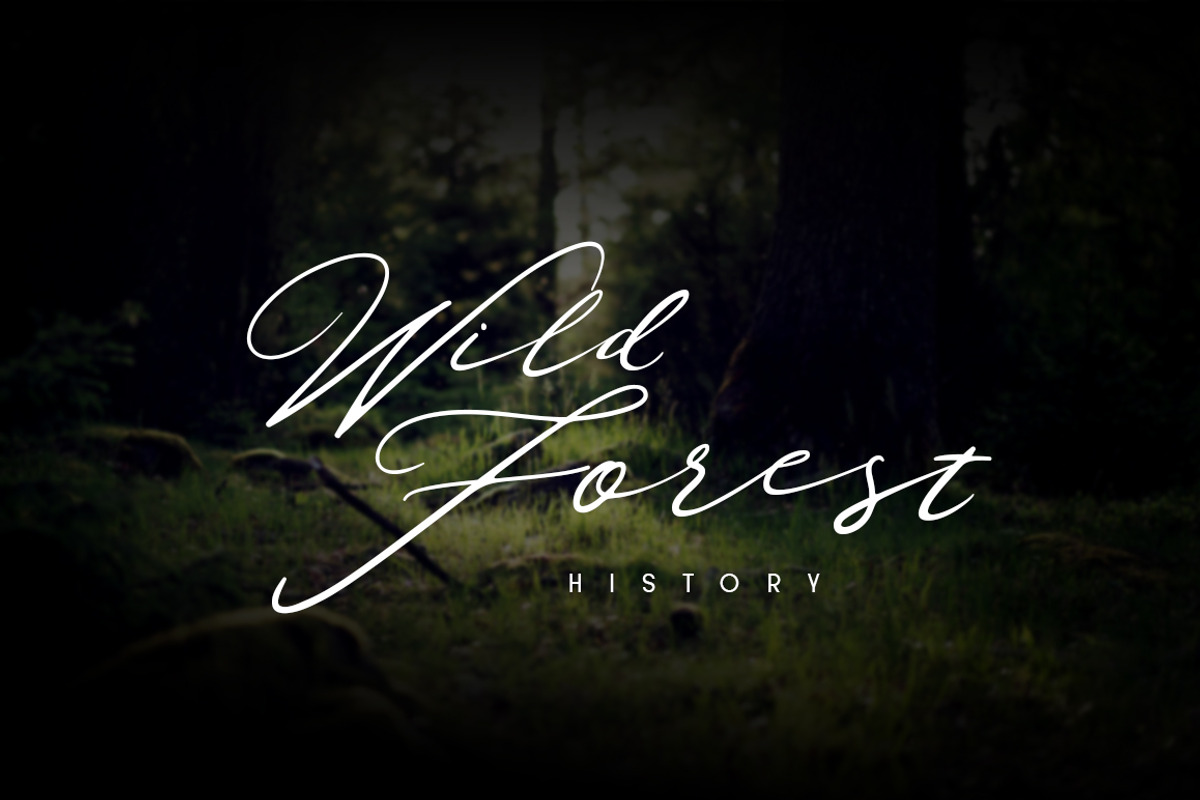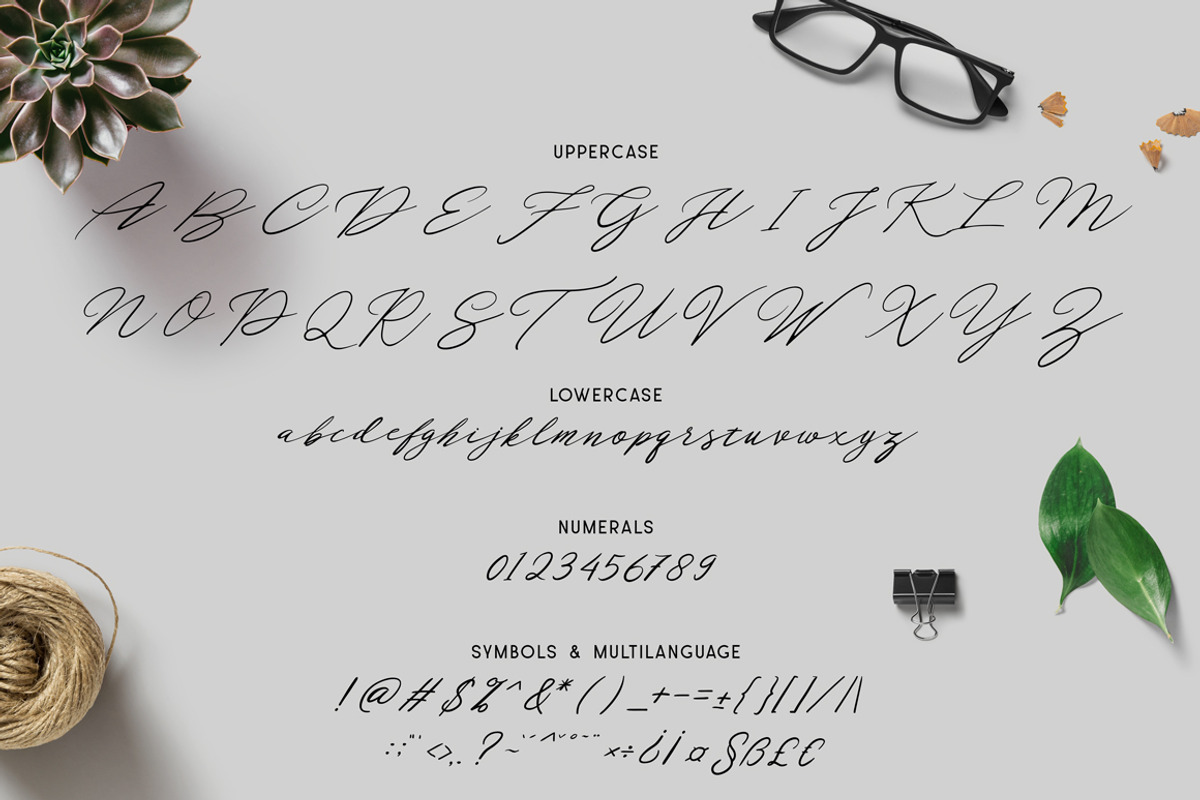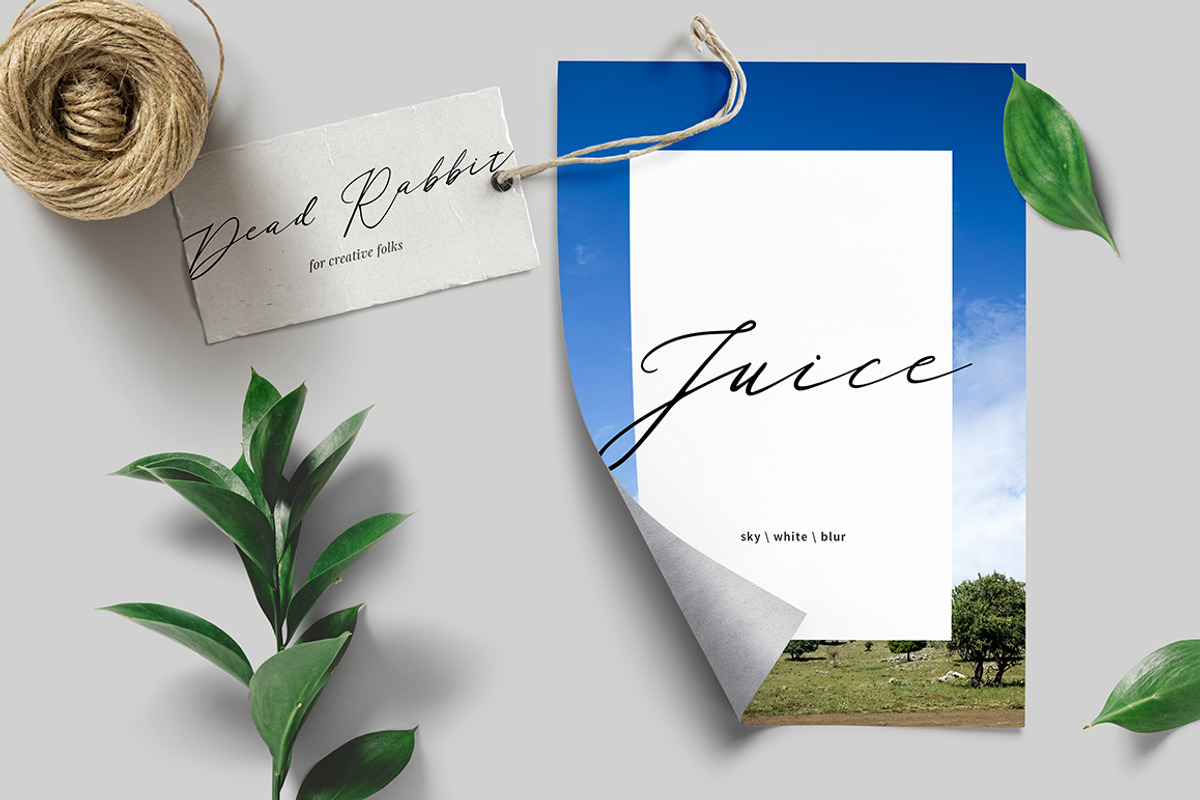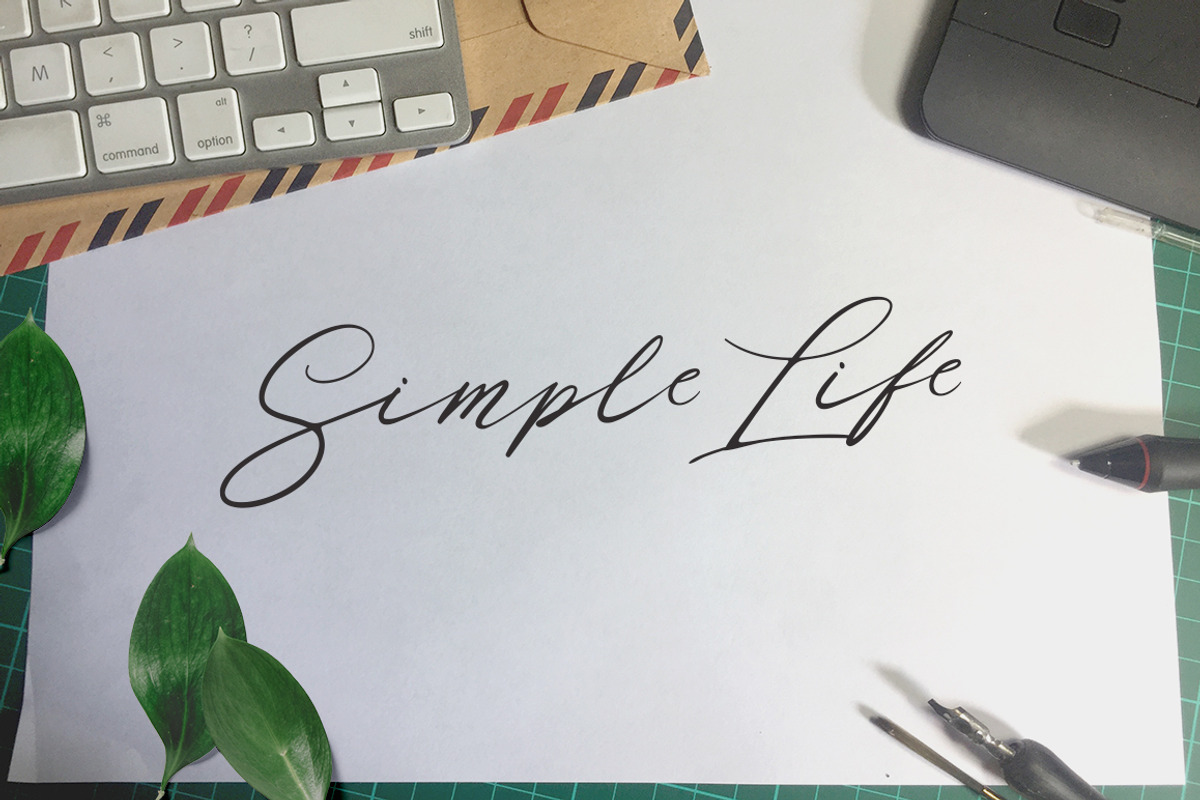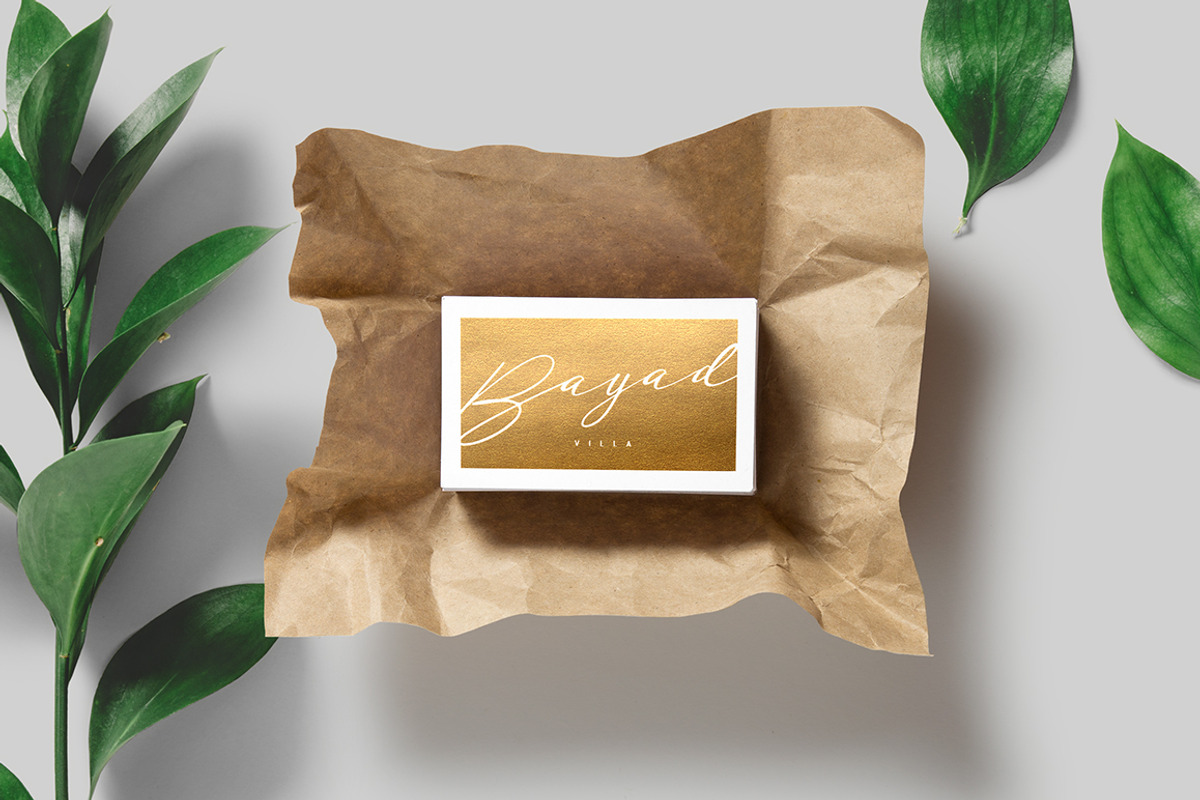
Localghost Typeface
Localghost Typeface by alit design is a font selected for branding, posters, packaging, typography.
- Character Set A-Z
- Contextual Alternates
- Localghost Italic
Why Localghost Typeface is worth a look
Localghost Typeface by alit design fits naturally into Branding, posters, packaging, typography.